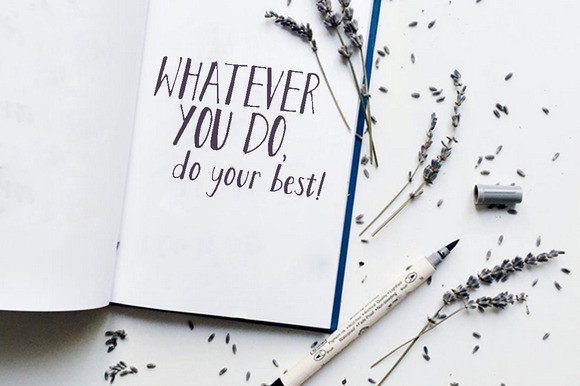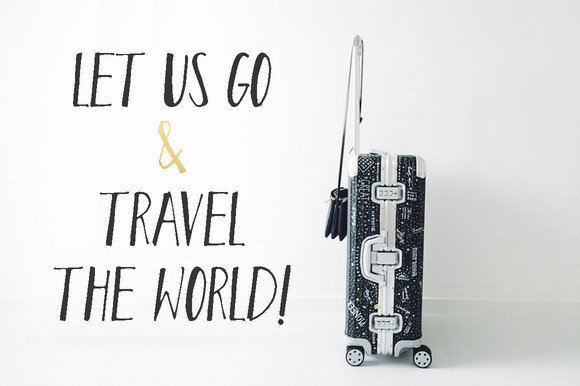
The August Font: A Timeless Choice for Creative Projects
I’ll never forget the time I was working on a wedding invitation project, and my client asked me to create a custom design that exuded elegance and sophistication. I spent hours scouring font libraries, but nothing seemed quite right. That was until I stumbled upon the August font. Its clean lines, feminine touch, and versatility won me over, and it became the perfect fit for the project. In this article, I’ll share my experience with the August font, its features, and how to make the most of it in various design platforms.
A Personal Review of August Font
The August font has become a staple in my design toolkit, and here’s why:
- ✨ Feminine yet clean and neat: August’s design strikes the perfect balance between elegance and simplicity, making it suitable for a wide range of projects.
- ✅ Highly versatile: From greeting cards and wedding invitations to stickers and letters, August font adapts seamlessly to different design contexts.
- 💕 Emotional connection: The font’s gentle curves and flowing lines evoke a sense of warmth and personality, making it perfect for projects that require a personal touch.
While the August font is exceptional, there are a few minor considerations to keep in mind:
- 🤔 Limited bold weights: If you need a heavier font weight, you might find August’s options limited. However, the existing weights work beautifully for most design applications.
- ⚠️ Glyph compatibility: Some glyphs or special characters might not work perfectly across all platforms or software. Always test your design before finalizing.
The Story Behind August Font
The August font was designed with the intention of creating a versatile, elegant typeface suitable for a variety of creative projects. Inspired by classic typography and modern design principles, August combines femininity with cleanliness and simplicity. The designer aimed to create a font that would be both timeless and adaptable, making it a go-to choice for designers and hobbyists alike.
Q: What makes August font suitable for wedding invitations?
A: August font’s elegant lines, clean design, and feminine touch make it perfect for wedding invitations, adding a touch of sophistication and romance.
Q: Does August font support OpenType features?
A: Yes, August font comes with a range of OpenType features, including stylistic alternates and glyphs, which can be accessed in compatible design software.
Q: Is August font suitable for digital use?
A: Absolutely! August font’s clean design ensures it remains legible and elegant on digital platforms, making it suitable for websites, social media graphics, and more.